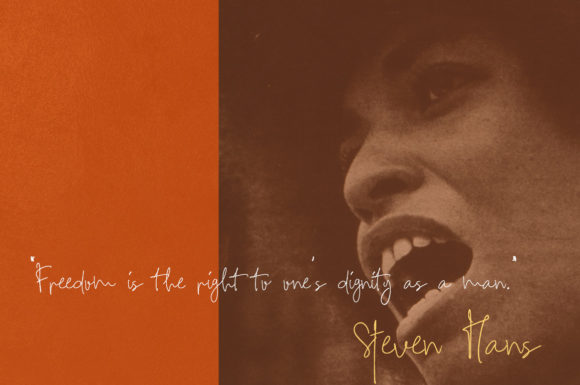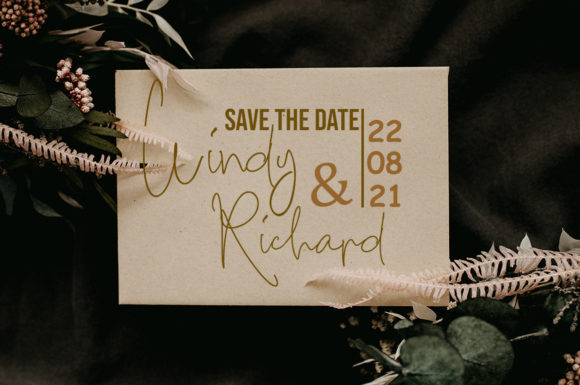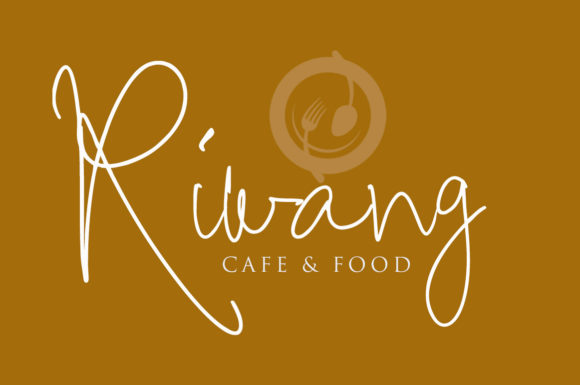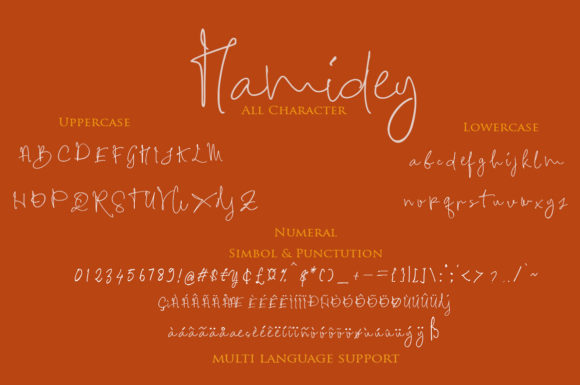
Hamidey Font: Elevate Your Designs with Luxurious and Unique Script
In the world of typography, a good font can make all the difference in creating stunning visual content. For designers and crafters, finding the perfect font that adds a touch of elegance and sophistication to their work can be a daunting task. This is where Hamidey Font comes in – a thin lettered, luxurious, and uniquely lettered script font that is sure to elevate your designs to the next level.
What is Hamidey Font?
Hamidey is a beautifully crafted script font that exudes luxury and refinement. Its thin letters and delicate strokes make it perfect for designs that require a touch of elegance and poise. Whether you’re working on a branding project, a wedding invitation, or a packaging design, Hamidey Font is a wonderful asset to have in your font library.
Key Features of Hamidey Font
- Thin Lettered: Hamidey Font features thin letters that are perfect for creating elegant and sophisticated designs.
- Luxurious: The font’s luxurious feel makes it ideal for high-end branding, packaging, and advertising designs.
- Uniquely Lettered: Hamidey’s unique lettering style sets it apart from other script fonts, making it a great choice for designers looking for something distinctive.
- Highly Detailed: The font is meticulously crafted with attention to detail, ensuring that it looks great in any design.
Why Choose Hamidey Font?
- Versatility: Hamidey Font can be used for a wide range of design projects, from branding and advertising to packaging and wedding invitations.
- Elegance: The font’s elegant and sophisticated feel makes it perfect for designs that require a touch of luxury and refinement.
- Uniqueness: Hamidey’s unique lettering style ensures that your designs stand out from the crowd and leave a lasting impression.
- Easy to Read: Despite its thin letters, Hamidey Font is easy to read, making it perfect for designs that require a clear and concise message.
How to Use Hamidey Font in Your Designs
- Pair it with Bold Fonts: Pair Hamidey Font with bold fonts to create a striking contrast that adds visual interest to your design.
- Use it for Headings: Use Hamidey Font for headings and titles to add a touch of elegance and sophistication to your design.
In conclusion, Hamidey Font is a luxurious and uniquely lettered script font that is sure to elevate your designs to the next level. Its thin letters, elegant feel, and highly detailed craftsmanship make it a wonderful asset to have in your font library. Whether you’re a designer or a crafter, Hamidey Font is a great choice for any design project that requires a touch of sophistication and refinement.